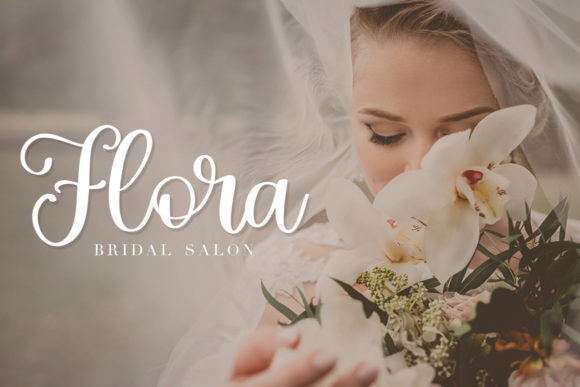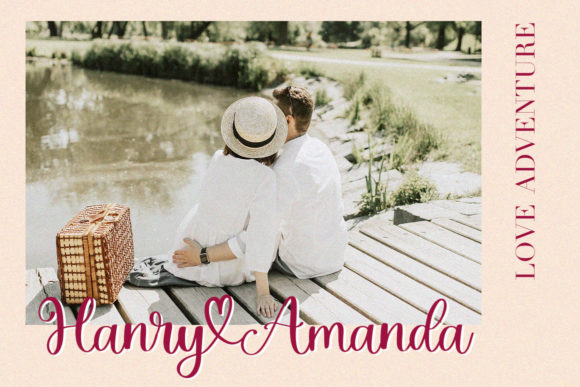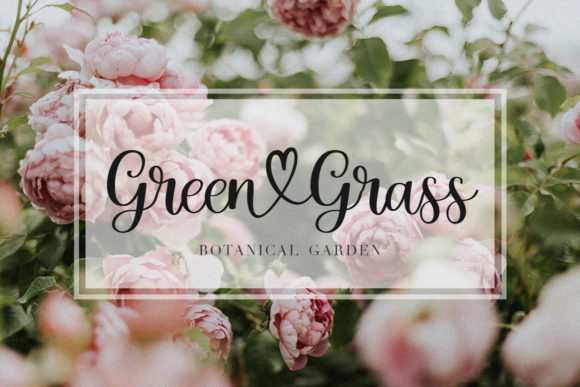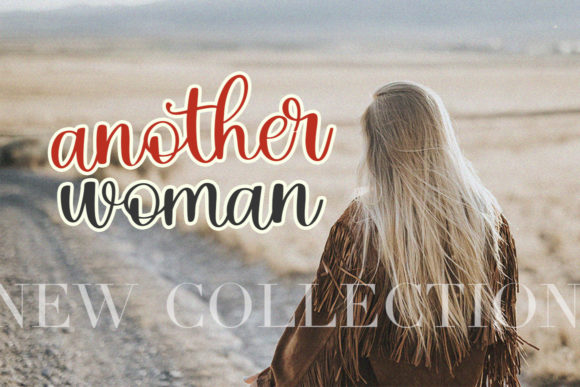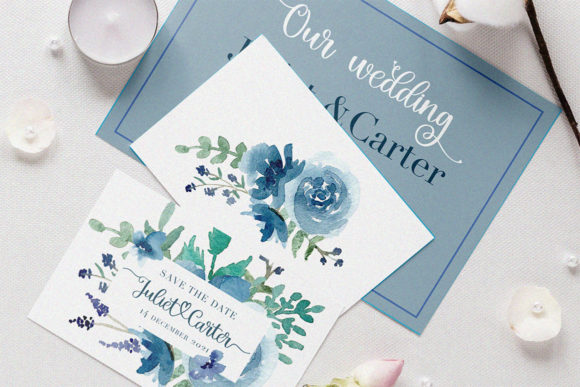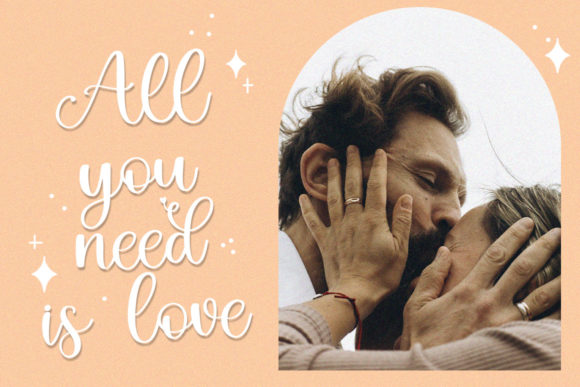
Coda Rosa Font: Elevate Your Designs with Elegance and Class
In the world of typography, few fonts manage to capture the essence of romance and delicacy as perfectly as Coda Rosa. This exquisite script font is designed to bring an air of elegance and sophistication to any design project. Whether you’re a seasoned designer or a crafty DIY enthusiast, Coda Rosa is the perfect choice for those seeking to infuse their creations with a touch of refinement and charm.
The Beauty of Coda Rosa
Coda Rosa is a meticulously crafted font that boasts a unique blend of classic and modern elements. Its delicate strokes and intricate flourishes evoke a sense of nostalgia, while its clean lines and subtle curves ensure it remains fresh and contemporary. This beautiful script font is perfect for a wide range of design applications, from wedding invitations and stationery to branding and packaging.
Key Features of Coda Rosa
- Romantic and Delicate: Coda Rosa’s elegant strokes and flourishes create a sense of whimsy and romance, making it perfect for designs that require a touch of sophistication.
- Script Font: This beautiful script font features connected letters that flow seamlessly together, creating a sense of continuity and harmony.
- Elegant and Classy: Coda Rosa exudes refinement and poise, making it an excellent choice for high-end designs, luxury brands, and sophisticated projects.
- Versatile: This font is suitable for a wide range of design applications, including digital and print projects, such as logos, headings, and body text.
Why Choose Coda Rosa?
With so many fonts available, why choose Coda Rosa? Here are just a few reasons why this stunning script font stands out from the crowd:
- Unique and Distinctive: Coda Rosa’s elegant design ensures your projects will stand out from the crowd and leave a lasting impression.
- Easy to Read: Despite its delicate nature, Coda Rosa remains highly legible, making it perfect for body text and longer design projects.
- Customizable: This font can be easily customized to suit your design needs, allowing you to experiment with different colors, textures, and styles.
Design Inspiration with Coda Rosa
To truly appreciate the beauty of Coda Rosa, let’s explore some design inspiration ideas that showcase its elegance and versatility:
- Wedding Invitations: Create stunning wedding invitations, save-the-date cards, and ceremony programs that exude romance and sophistication.
- Branding and Packaging: Elevate your brand’s visual identity with Coda Rosa’s elegant script font, perfect for luxury brands, beauty products, and high-end services.
- Stationery and Paper Goods: Design beautiful stationery, journals, and paper goods that showcase Coda Rosa’s delicate charm.
Coda Rosa is a breathtakingly beautiful script font that embodies romance, elegance, and sophistication. Its unique blend of classic and modern elements makes it the perfect choice for designers and crafters seeking to elevate their projects with a touch of refinement and charm. Whether you’re working on a wedding invitation, branding project, or stationery design, Coda Rosa is sure to impress. So why not give it a try and experience the magic of Coda Rosa for yourself?
Get Creative with Coda Rosa
Ready to unleash your creativity with Coda Rosa? Here are some final tips to get you started:
- Experiment with Colors: Try pairing Coda Rosa with a range of colors, from soft pastels to rich jewel tones, to create a unique and eye-catching design.
- Play with Textures: Add depth and interest to your design by incorporating textures, such as watercolor or gold foil, with Coda Rosa.
- Mix and Match: Combine Coda Rosa with other fonts and design elements to create a truly one-of-a-kind design.